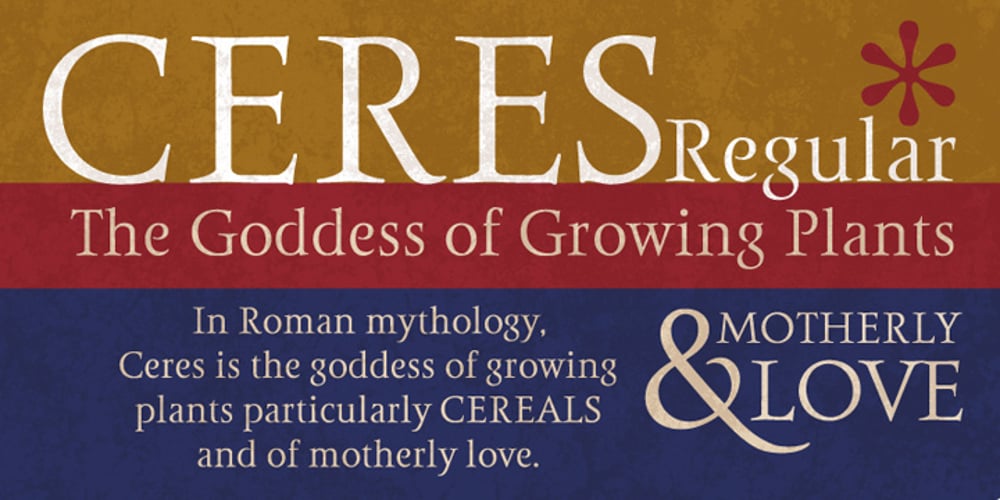
Ceres
Ceres font
Ceres Font Family was designed by Robbie de Villiers and published by Wilton Foundry. Ceres contains 4 styles and family package options. Ceres is has its roots in Cyan, our other font family. Like Cyan, Ceres has a complementary lowercase that provides more versatility than a classic Roman. It is arguably more elegant than Cyan with its accentuated serifs. The lowercase “e” and “g” give Ceres a distinct calligraphic personality. Ceres, the font, derived its name from Ceres the Roman goddess. In Roman mythology, Ceres is the goddess of growing plants (particularly cereals) and of motherly love. Ceres was usually equated with the Greek goddess Demeter. Ceres was the daughter of Saturn and Ops, wife-sister of Jupiter, mother of Proserpina by Jupiter and sister of Juno, Vesta, Neptune and Pluto. Ceres made up a trinity with Liber and Libera, who were two other agricultural gods. She also had twelve minor gods who assisted her, and they were in charge of specific aspects of farming.